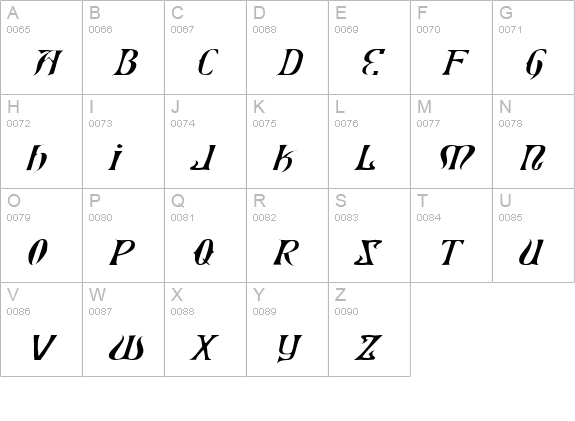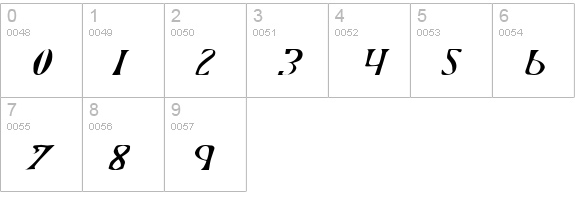
Xiphos Expanded Light Italic is a refined, elegant, extended-width, italic variant in the Xiphos typeface family \xE2\x80\x94 well suited to elegant body text, refined sub-headings, and luxury branding.
The Xiphos Expanded Light Italic font is a sleek and modern typeface that effortlessly combines elegance with a touch of sophistication. Its light italic style exudes a sense of refinement and grace, making it perfect for projects that require a subtle and contemporary aesthetic. The slender and elongated letterforms of Xiphos Expanded Light Italic create a sense of fluidity and movement, adding a dynamic element to any design. What's even better is that this beautiful font is available for free download at FontsMarket.com, making it easily accessible for all your creative endeavors. Whether you're designing a website, crafting a logo, or creating a stunning print piece, Xiphos Expanded Light Italic is sure to elevate your project with its unique and stylish flair. Don't miss out on the opportunity to enhance your designs with this exquisite font that is both versatile and visually pleasing. Download Xiphos Expanded Light Italic today and let your creativity shine!